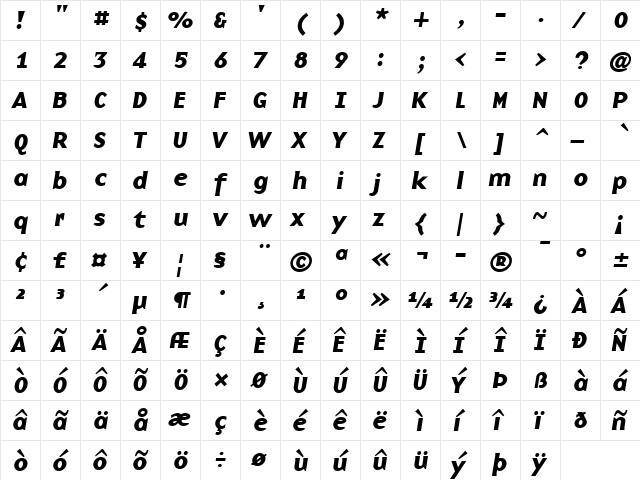
BaseNine Bold Italic
Design Context for BaseNine Typeface
BaseNine offers clean, dependable letterforms without strong stylistic allegiance, making it a practical choice for designers who need flexibility. The slanted form adds forward momentum and visual energy. Its bold stroke weight gives it real presence on the page.
Pro Tip: Use BaseNine for emphasis, pull quotes, and subheadings where its slanted energy can add rhythm to the layout.